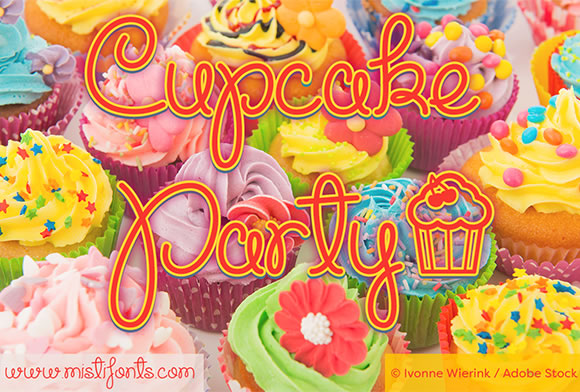
Cupcake Party Font
About Cupcake Party Font
Cupcake party is a fun, curly font and can be used for various purposes such as headings, logos, invitations, t-shirt designs, greeting cards, posters, labels, book covers, brochures and much more!